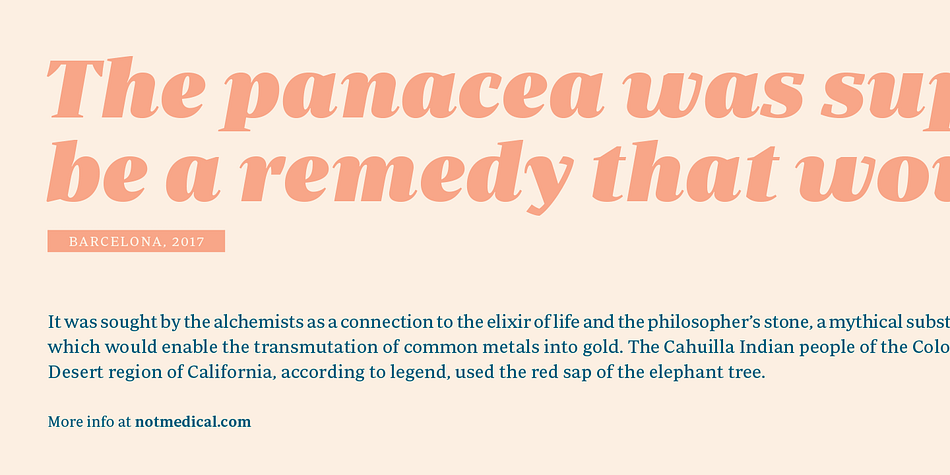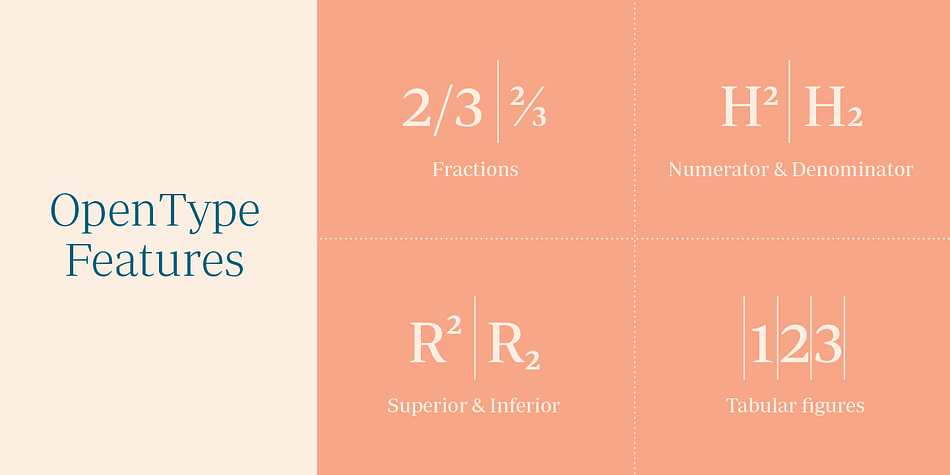
Designed by Eduardo Manso, Periódico is a serif font family. This typeface has thirty styles and was published by Emtype Foundry.
Periódico, newspaper in Spanish, was originally commissioned by the Spanish daily newspaper ABC. Inspired by old Spanish typographic engravings, mostly from the second half of the 18th Century, we picked out the most relevant details of Spanish typography as the source of that inspiration, and instead of making a revival or an interpretation of these models, we started from scratch to create a truly original font family. The goal was to achieve a very distinctive family, functional and versatile at the same time.